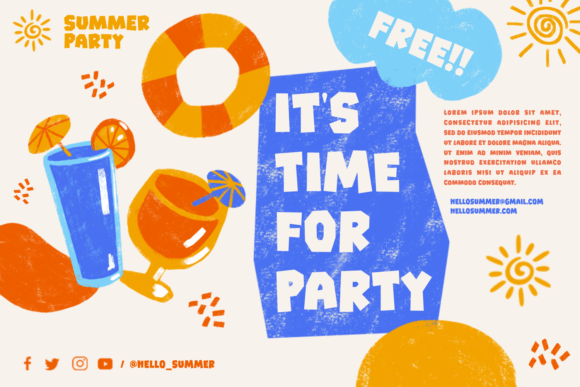
Funny Block Font
Funny Block is a blocky and playful display font that is perfect for creating bold and fun designs. Its thick and sturdy letters feature playful and quirky details that give it a unique and charming personality. This font is perfect for headlines, posters, and other playful projects. The font’s playful and bold personality is sure to make an impact.